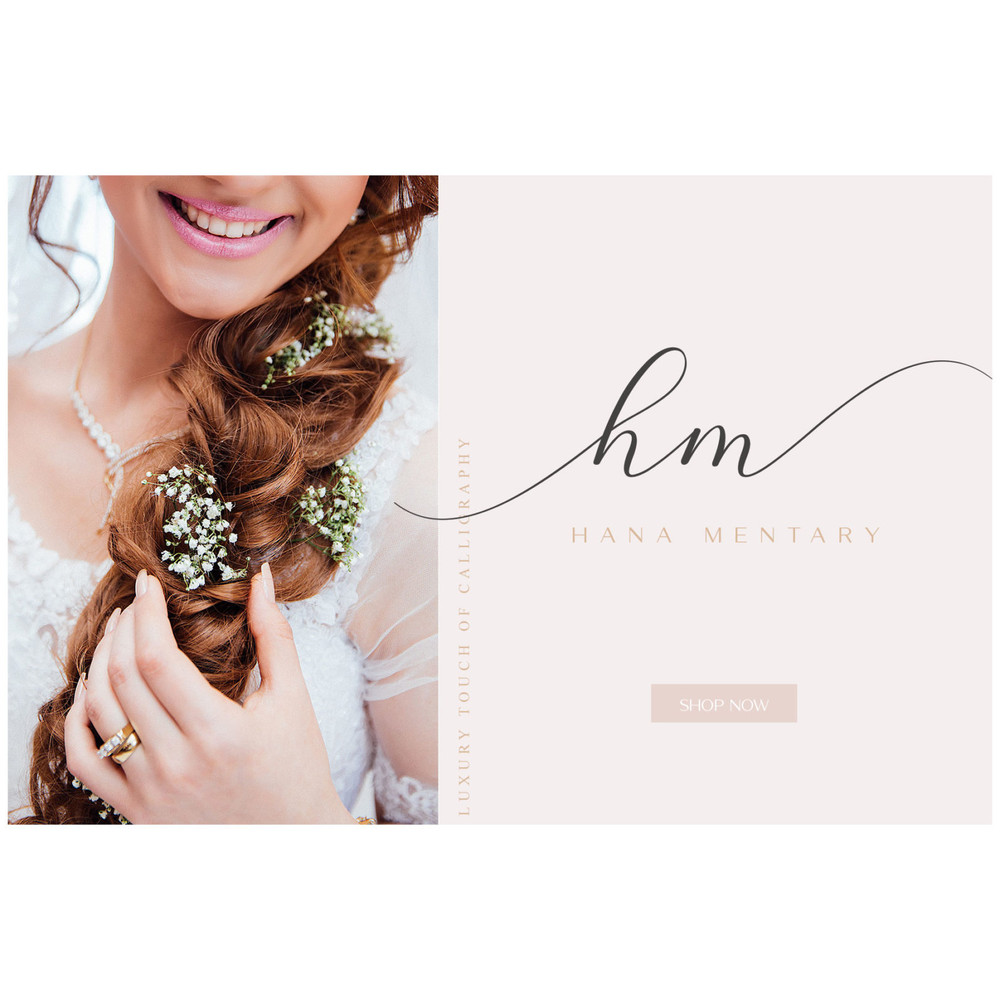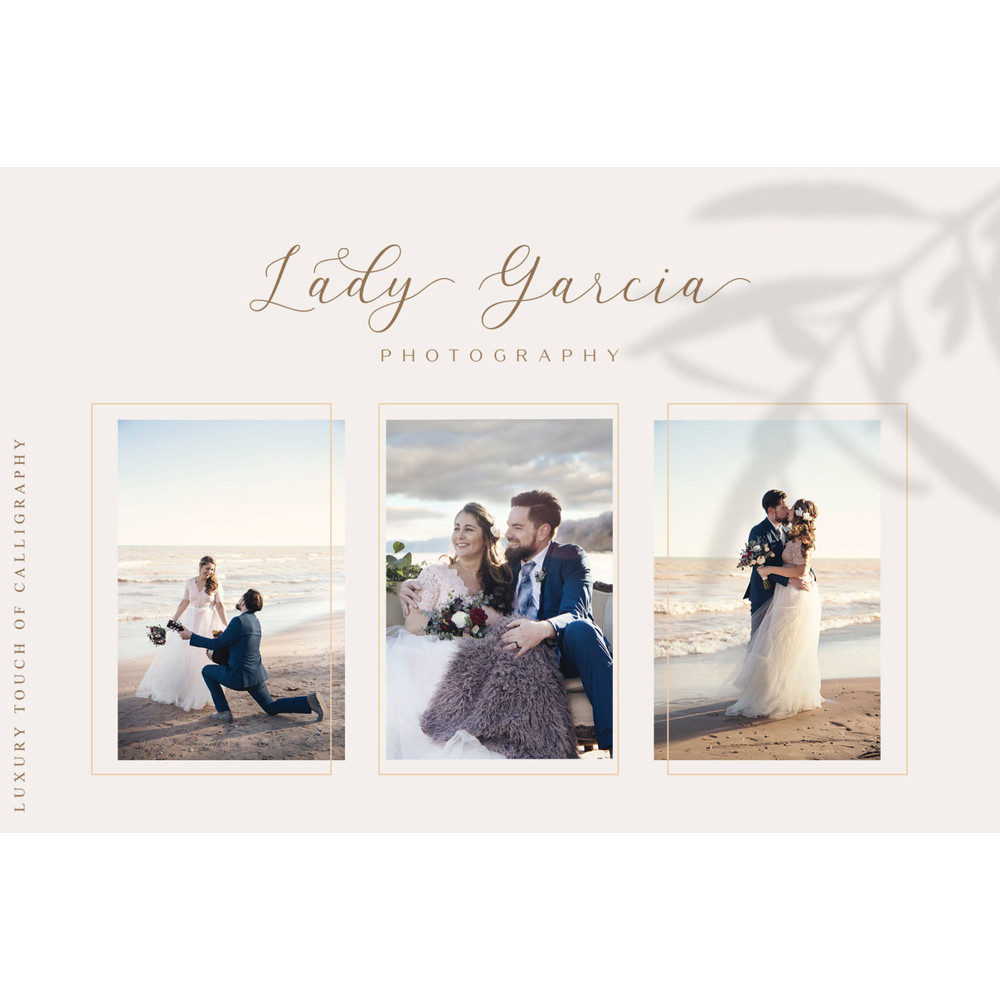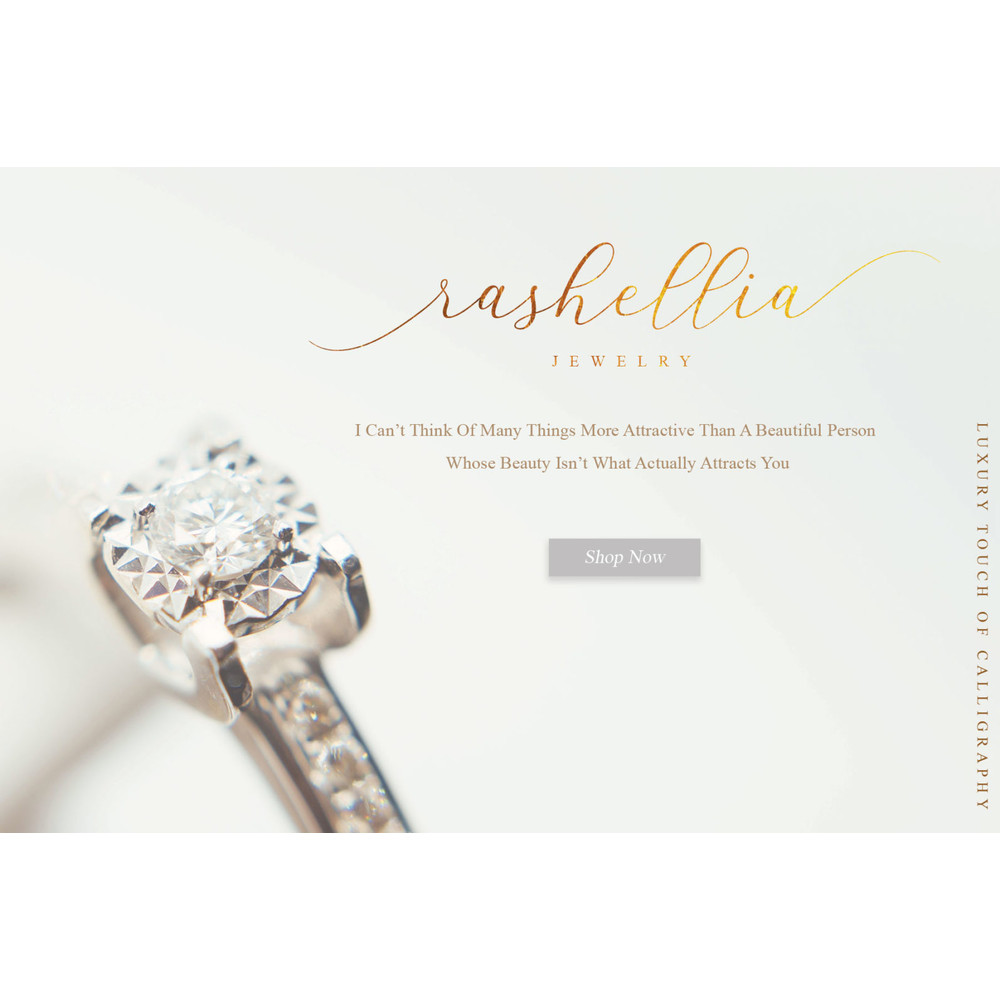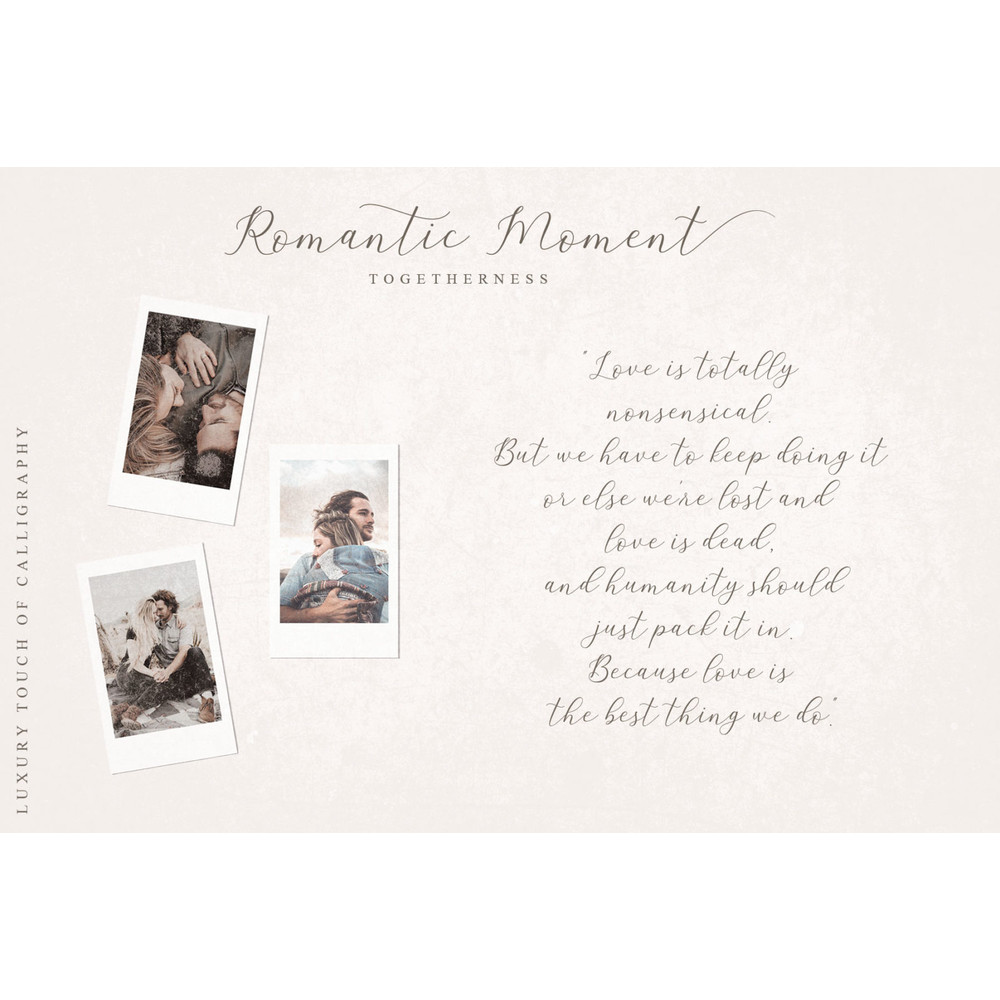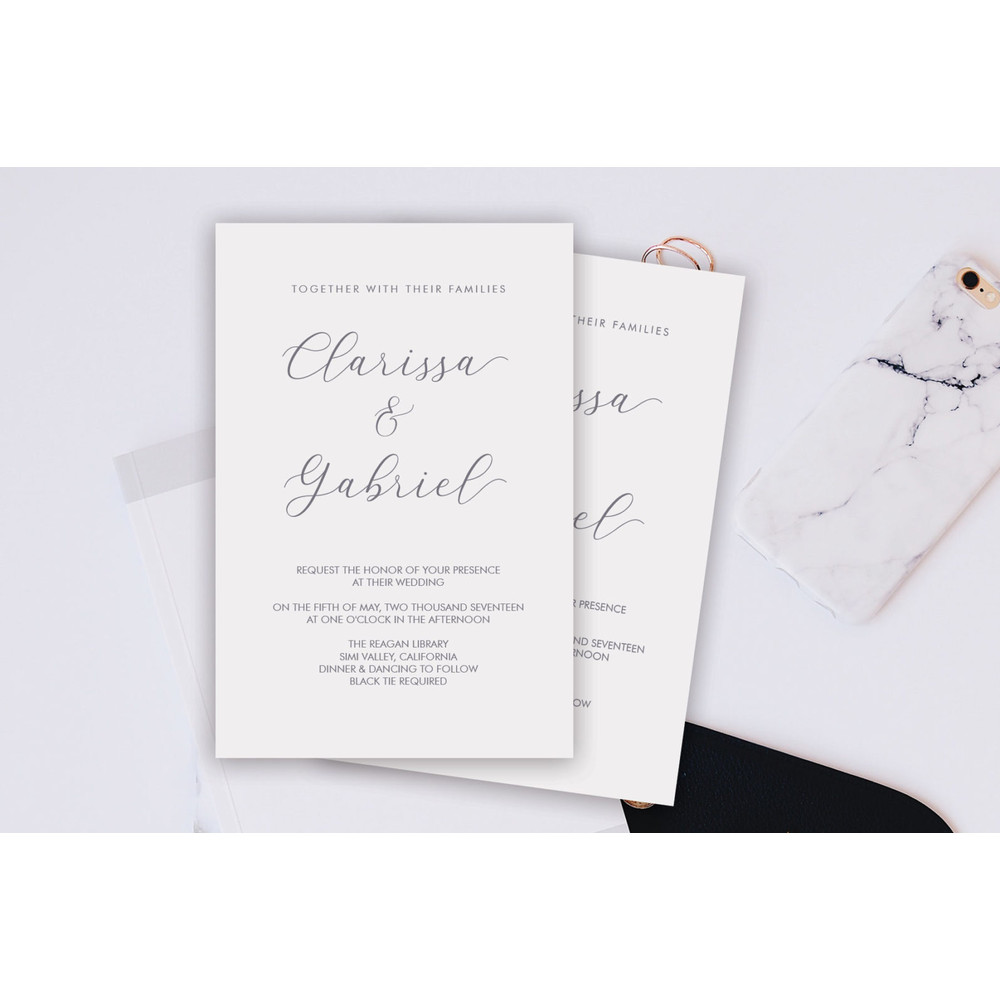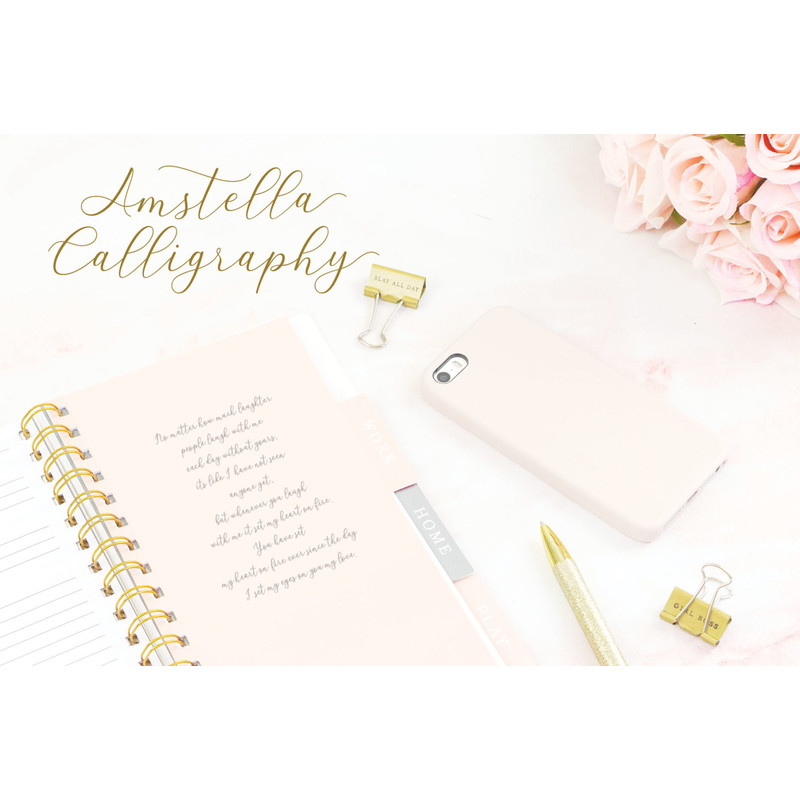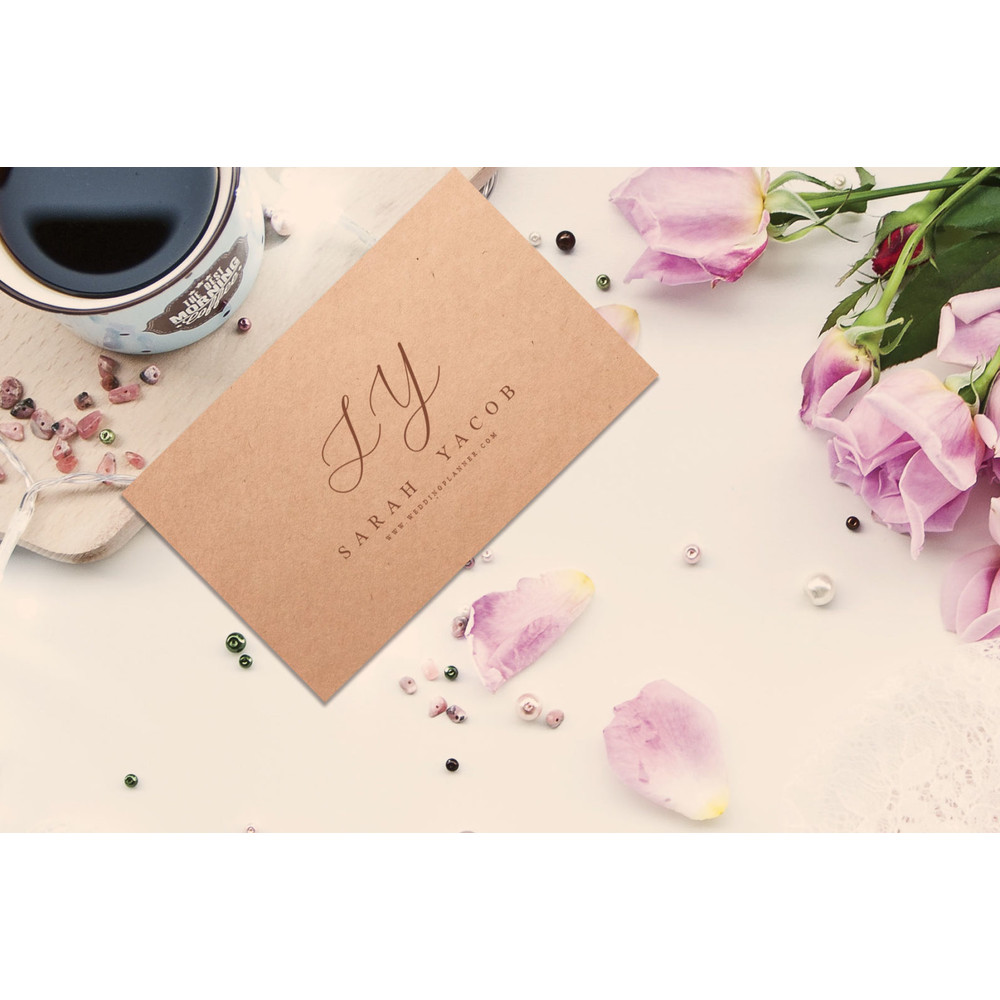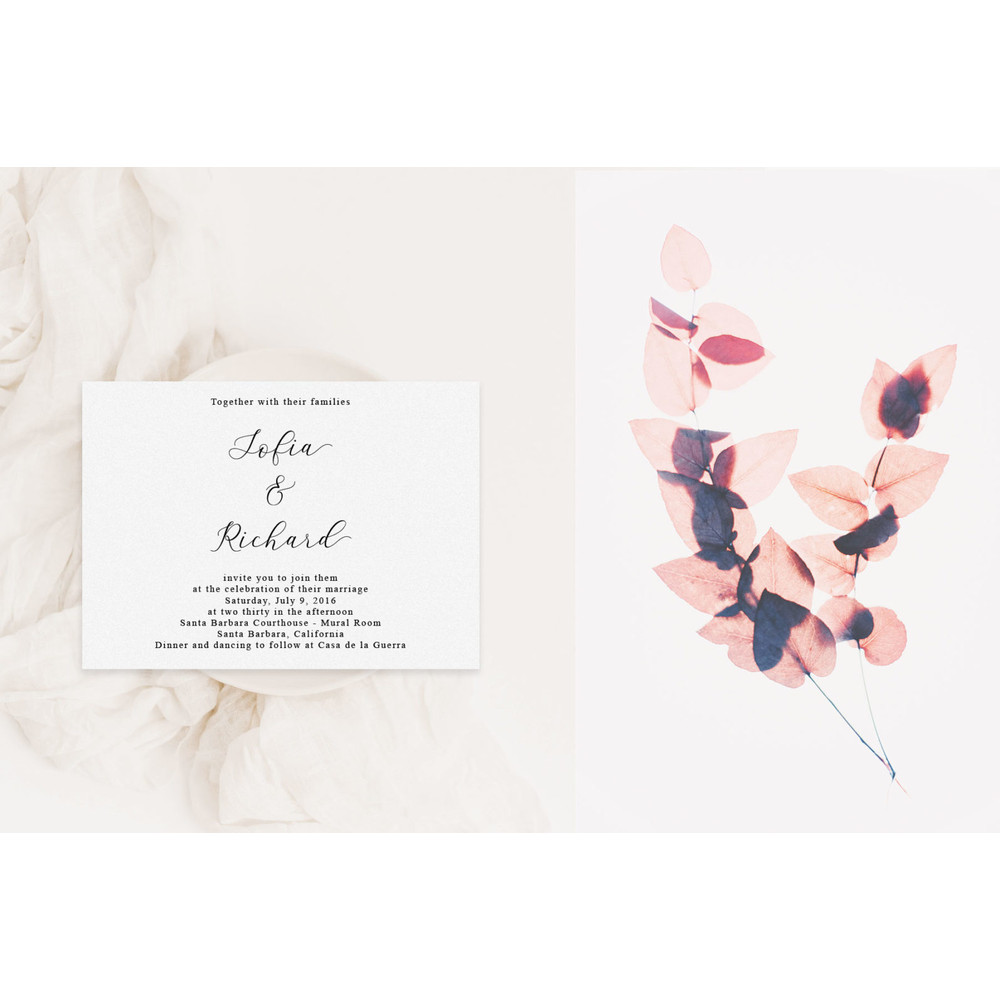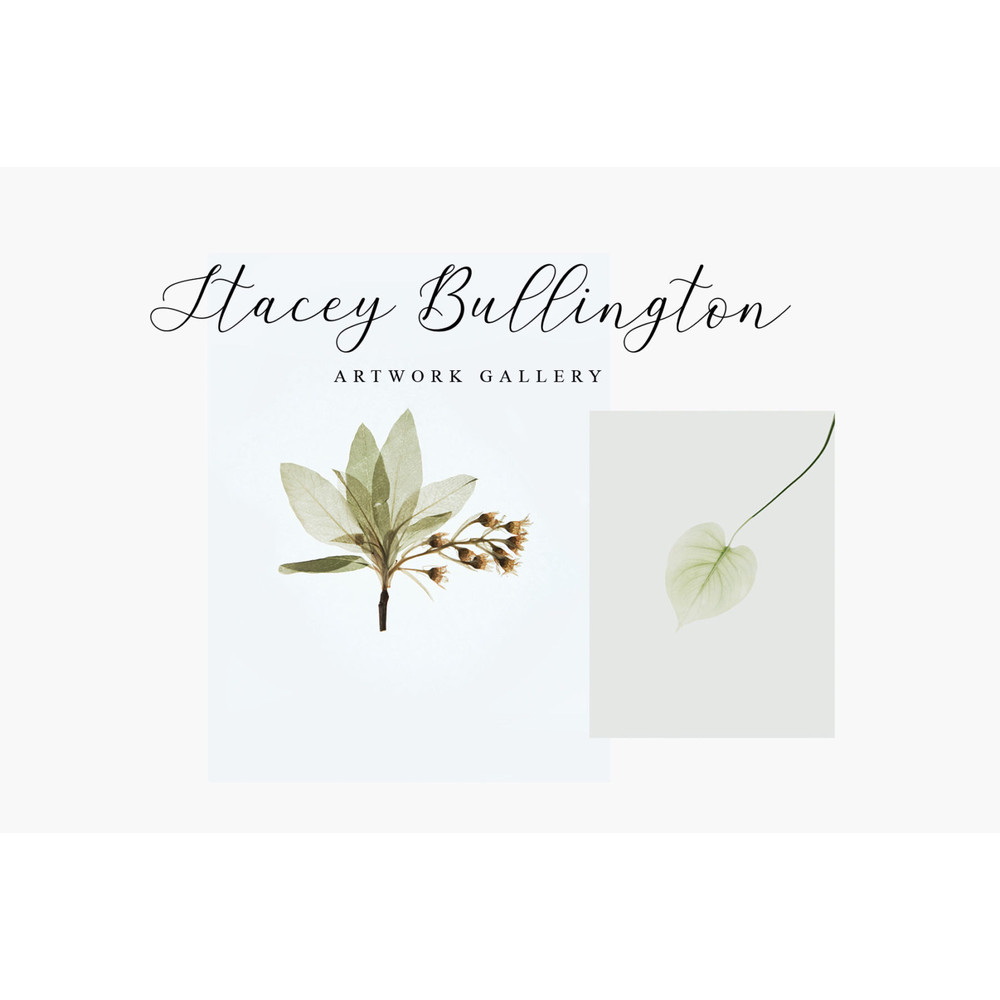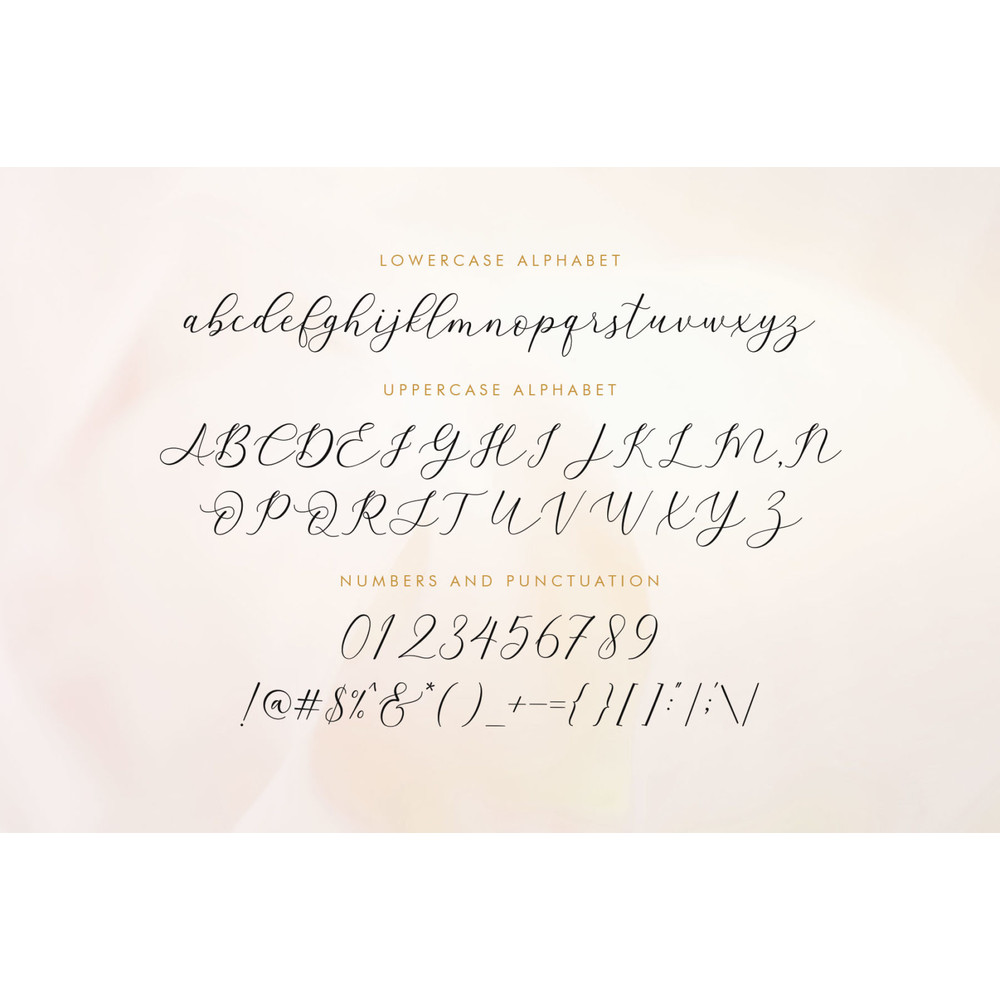
Amstella Modern Calligraphy Trending Fonts - Digital Font
Say hi to “Amstella” modern scrip font with various features, designed with a touch of luxury and elegance and created just for you. Amstella includes Begining and ending swashes for each main character it’s very perfect for creating modern designs like wedding designs, cards, ads, sales, logos, branding, posters, social media, and text overlays.
Opentype Feature
Ligatures
swashes
Alternates